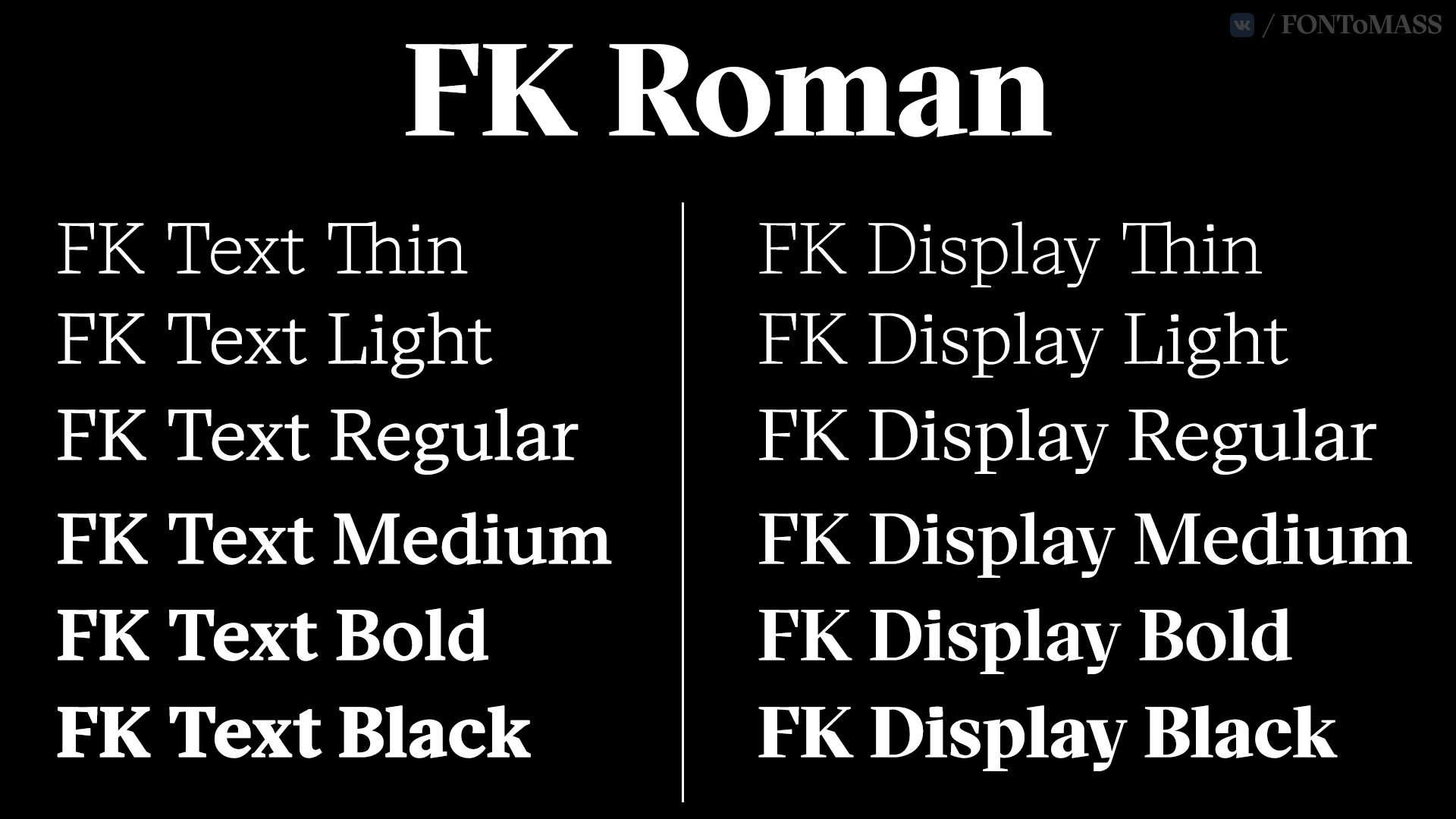
FK Roman Font
FK Roman Font is perfect for classical academic publications, historical documentation, legal documents, scholarly journals, traditional book publishing, and formal institutional communications. This distinguished typeface excels in museum exhibitions, university materials, prestigious awards ceremonies, and any application where timeless elegance and scholarly authority create lasting impressions of intellectual excellence.
What makes FK Roman Font so exciting is its masterful revival of classical Roman letterforms enhanced with contemporary precision and functionality. The font captures the enduring beauty of ancient inscriptional lettering while incorporating modern typographic refinements that ensure optimal readability across all media. Its noble proportions and balanced character reflect centuries of typographic tradition and scholarly achievement.
FK Roman Font comes in a distinguished family including Light, Regular, Medium, Bold, and Black weights. Each style features complete uppercase and lowercase character sets, classical punctuation, refined numerals, and traditional symbols. The font family also includes small caps, old-style figures, and scholarly ligatures that provide designers with comprehensive tools for creating sophisticated academic and formal publications.
The font's scholarly elegance makes it particularly suitable for universities, libraries, legal firms, and cultural institutions. Its superior legibility ensures that FK Roman Font performs excellently in both print and digital applications while maintaining its distinctive classical character. The font's ability to convey gravitas and intellectual credibility makes it an indispensable asset for any project requiring the perfect synthesis of historical tradition and contemporary professionalism.